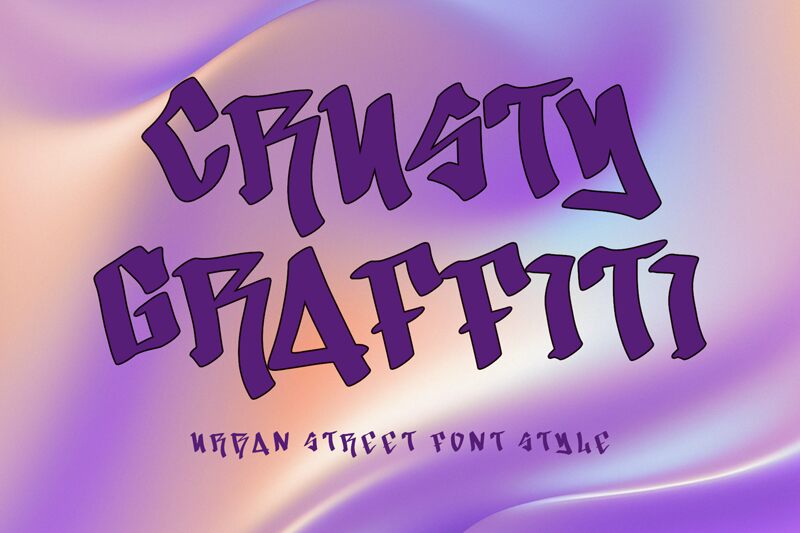
Crusty Graffiti font by Yoga Letter is a rugged, edgy, urban font with street-inspired rebellious vibes. Its bold visual impact creates unmistakable impressions, capturing an authentic graffiti style that feels both raw and artistic. This free graffiti display font has the power to add exceptional details to your typographic projects simply and quickly.
Make sure to use Crusty Graffiti on posters, business cards, packaging designs such as food products or coffees, apparel items’ tags or in labels like wine bottles’ labels. Websites & apps title web pages will also benefit from its effective appearance as well as branding all types of companies with interesting logotypes!